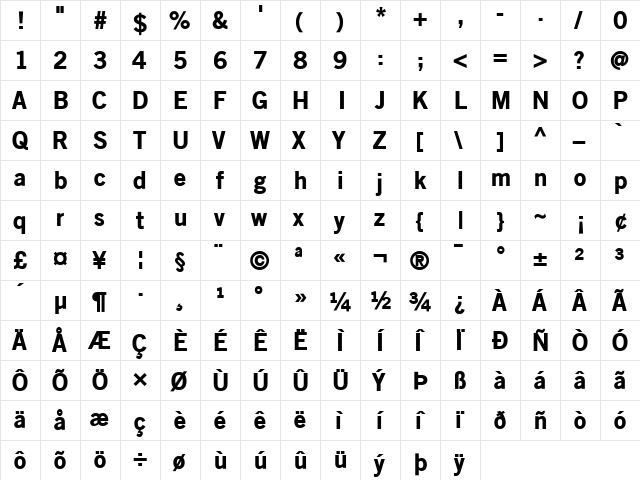
OldSansBlack Regular Font Preview
OldSansBlack Regular
Design Context for OldSansBlack Typeface
OldSansBlack is a composed and adaptable typeface that performs quietly and consistently across a wide range of design contexts.